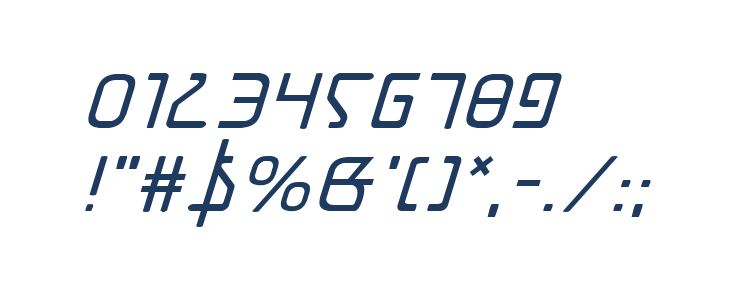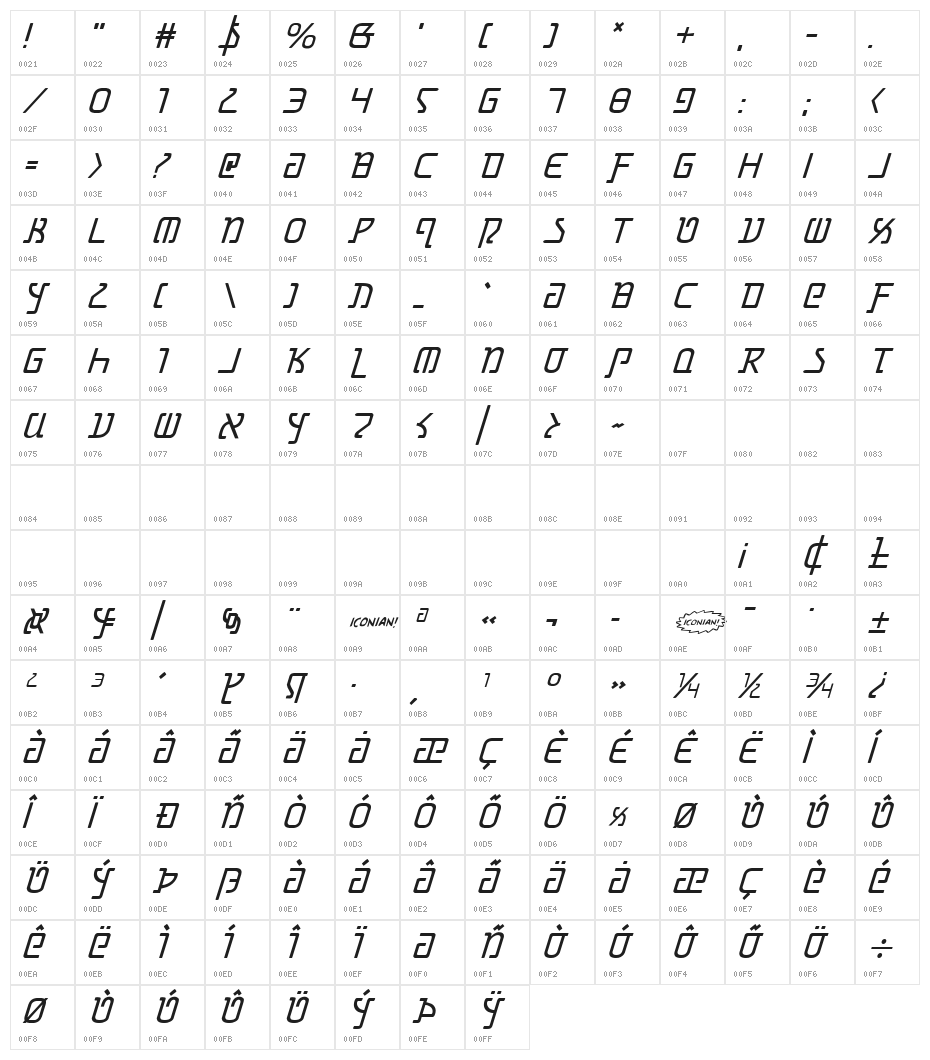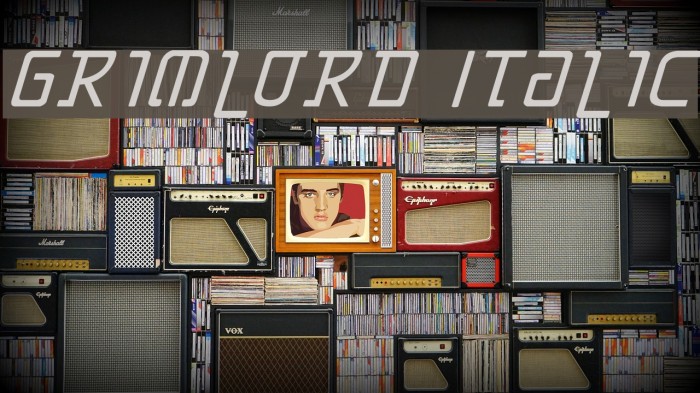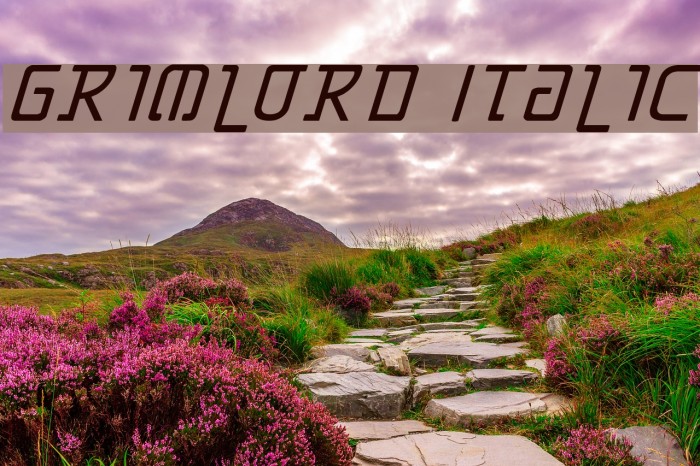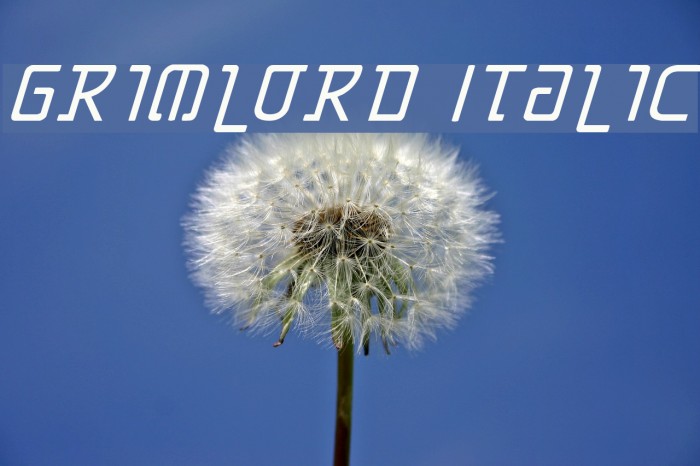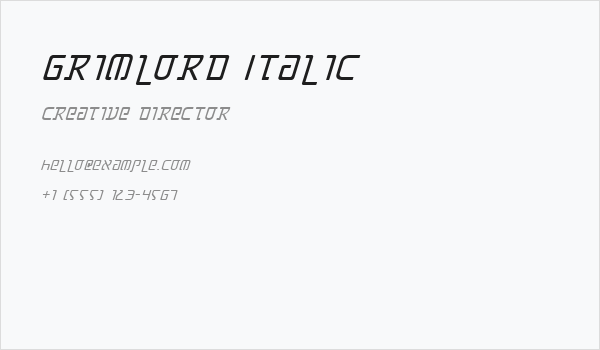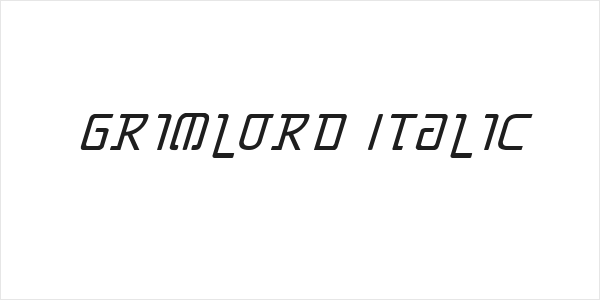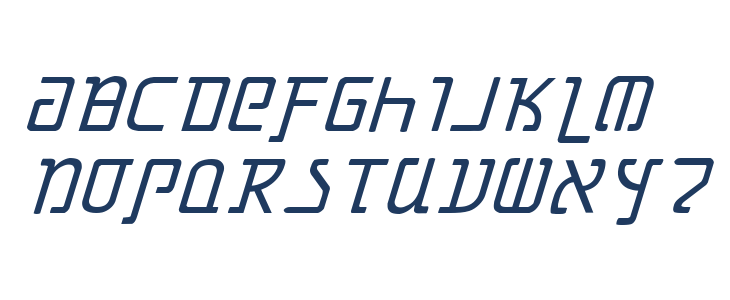
Grimlord Italic Font
Grimlord Italic Description
This font presents a dynamic and futuristic style with its italicized and angular letterforms. The characters are slightly slanted, giving a sense of motion and speed, which is enhanced by the sharp edges and geometric shapes. The uppercase and lowercase letters maintain a consistent style, with a uniform stroke width that adds to its modern appeal. The numerals and special characters follow the same design principles, ensuring a cohesive look across all glyphs. This font's unique design makes it stand out, suitable for projects that require a bold and contemporary aesthetic.